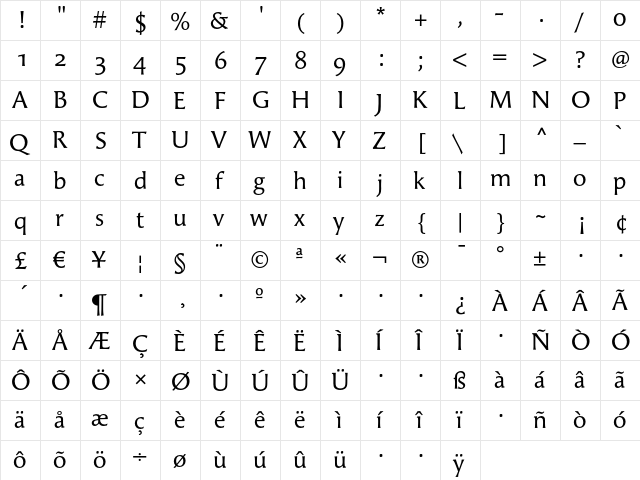
Angie RegularOSF
Design Context for Angie Typeface
Angie takes a measured approach to typography — its balanced proportions and neutral character make it a reliable workhorse for both digital and print work.